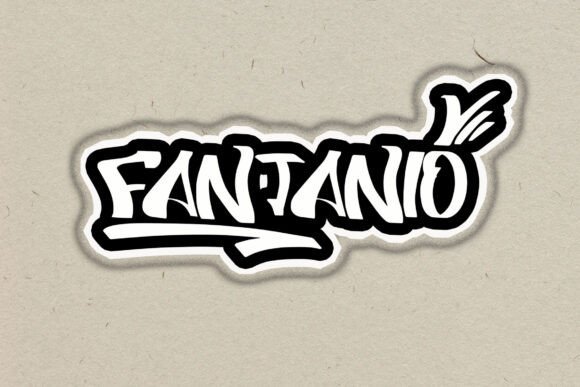
Introduction to Fantanio Font
FANTANIO is a bold graffiti font with a natural hand brush style, designed to add a fresh, urban edge to your designs.
Its unique character shapes bring raw, expressive energy, making FANTANIO perfect for logos, streetwear, posters, and any project needing a creative and impactful look .
Key Features of Fantanio Font